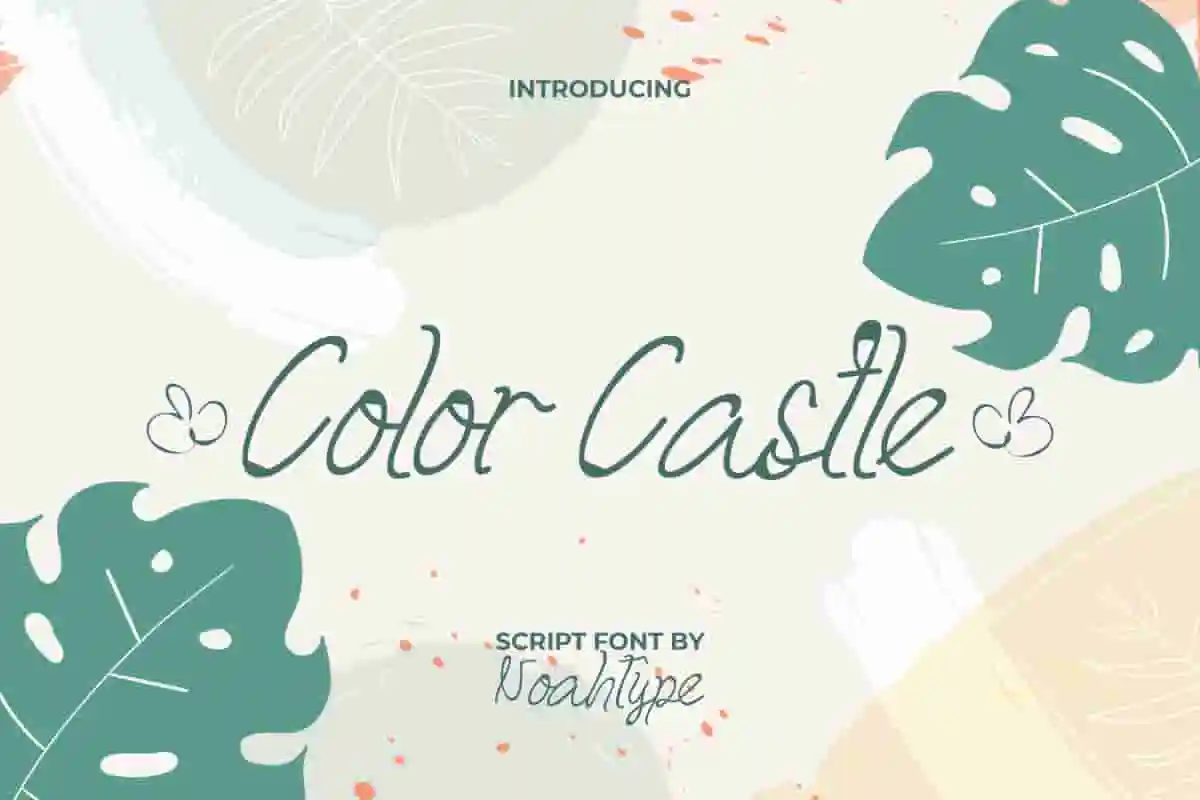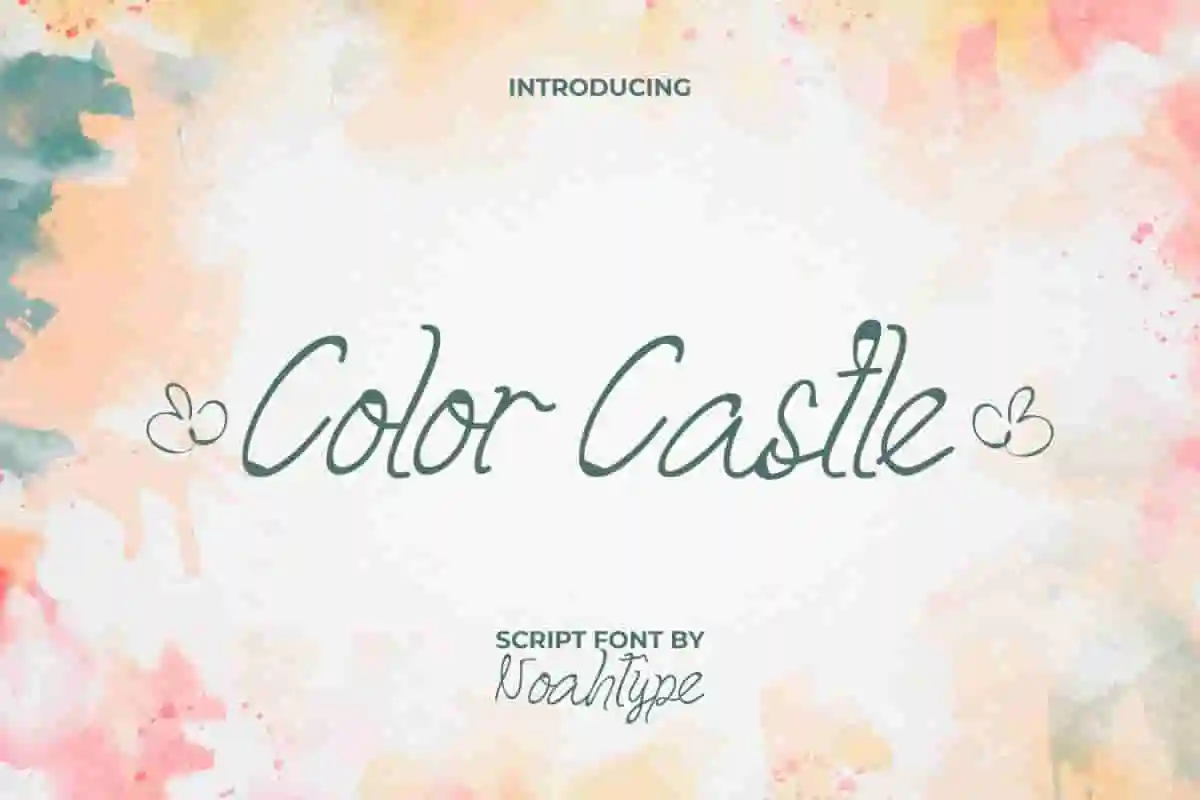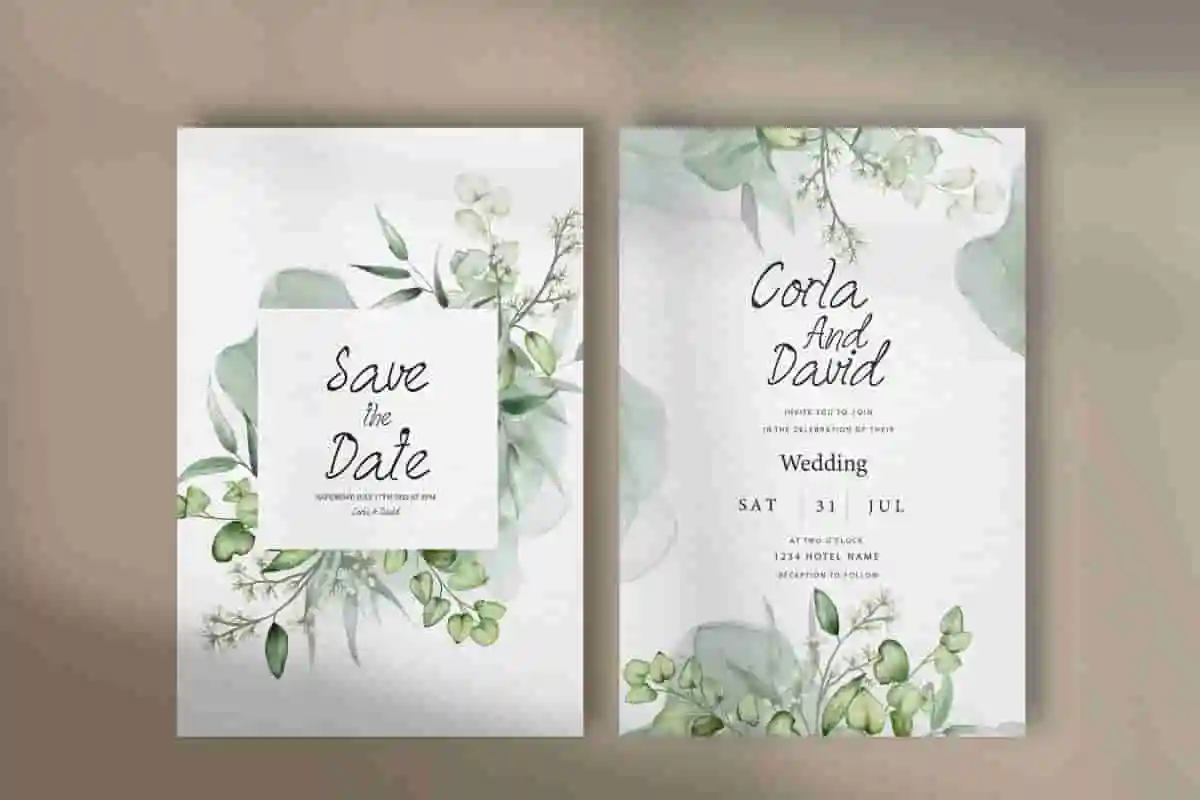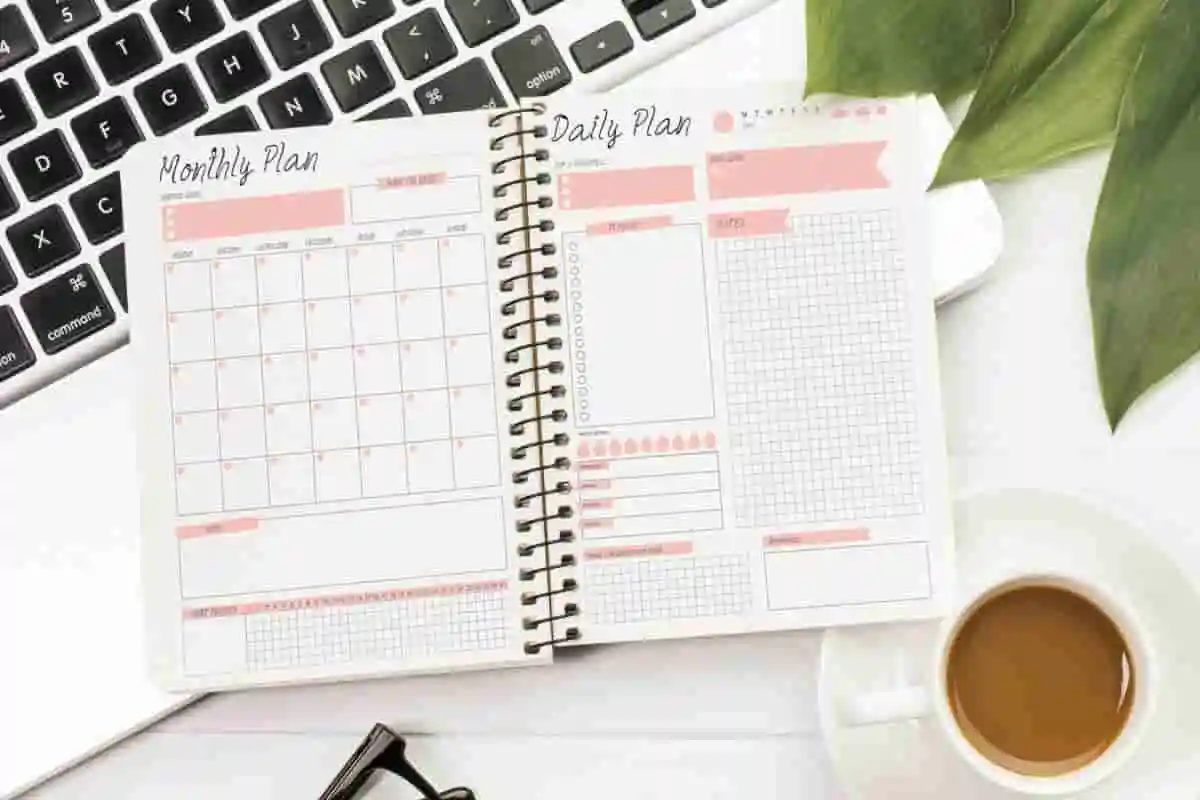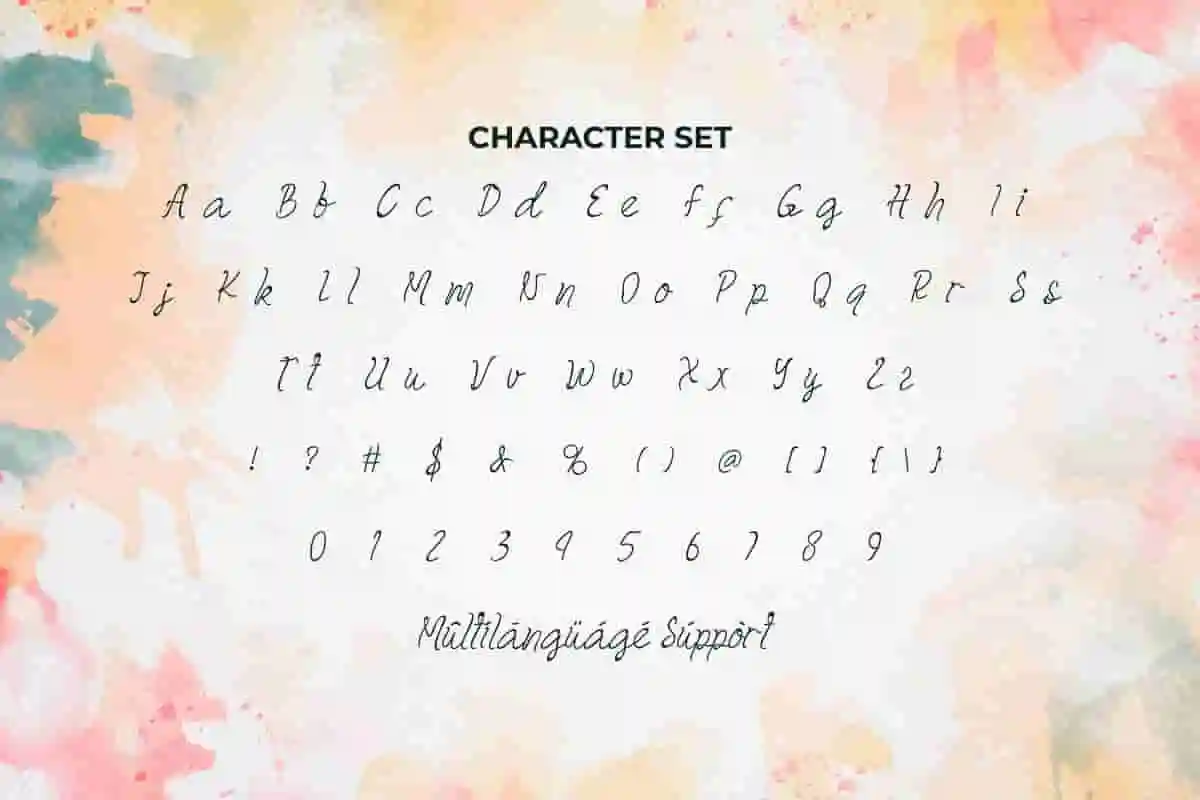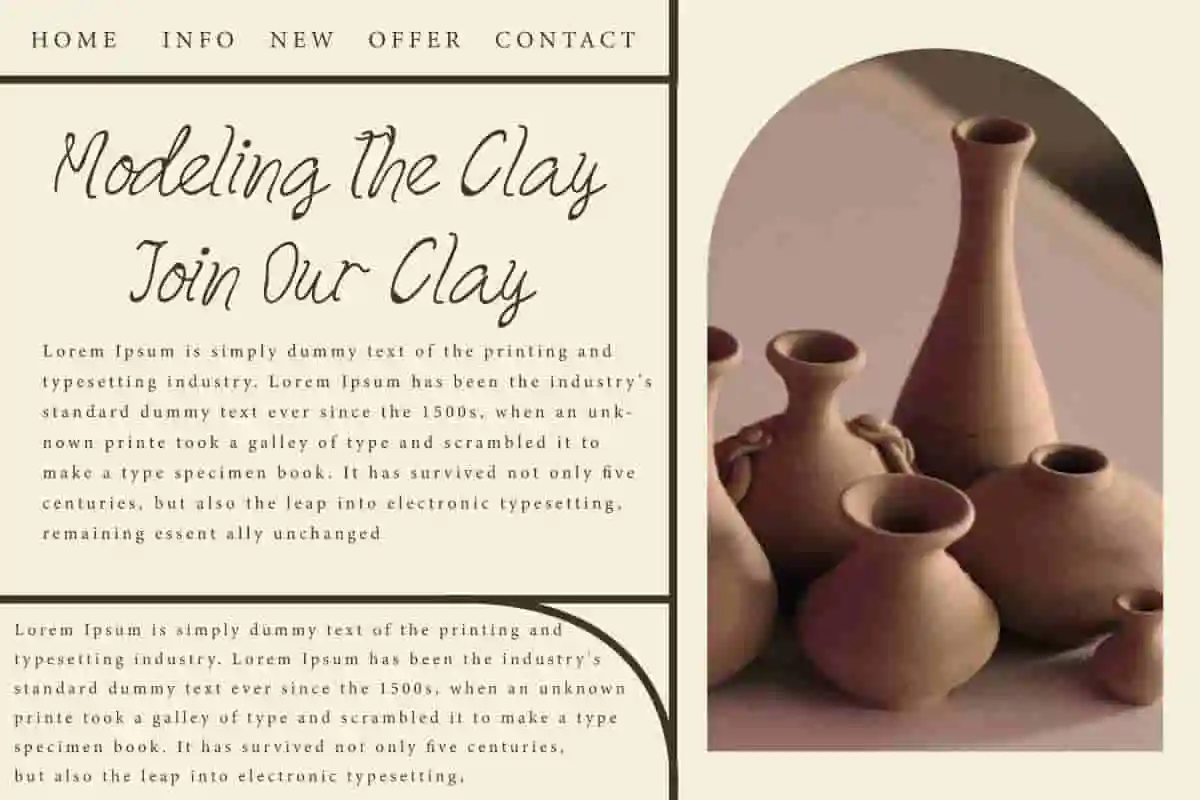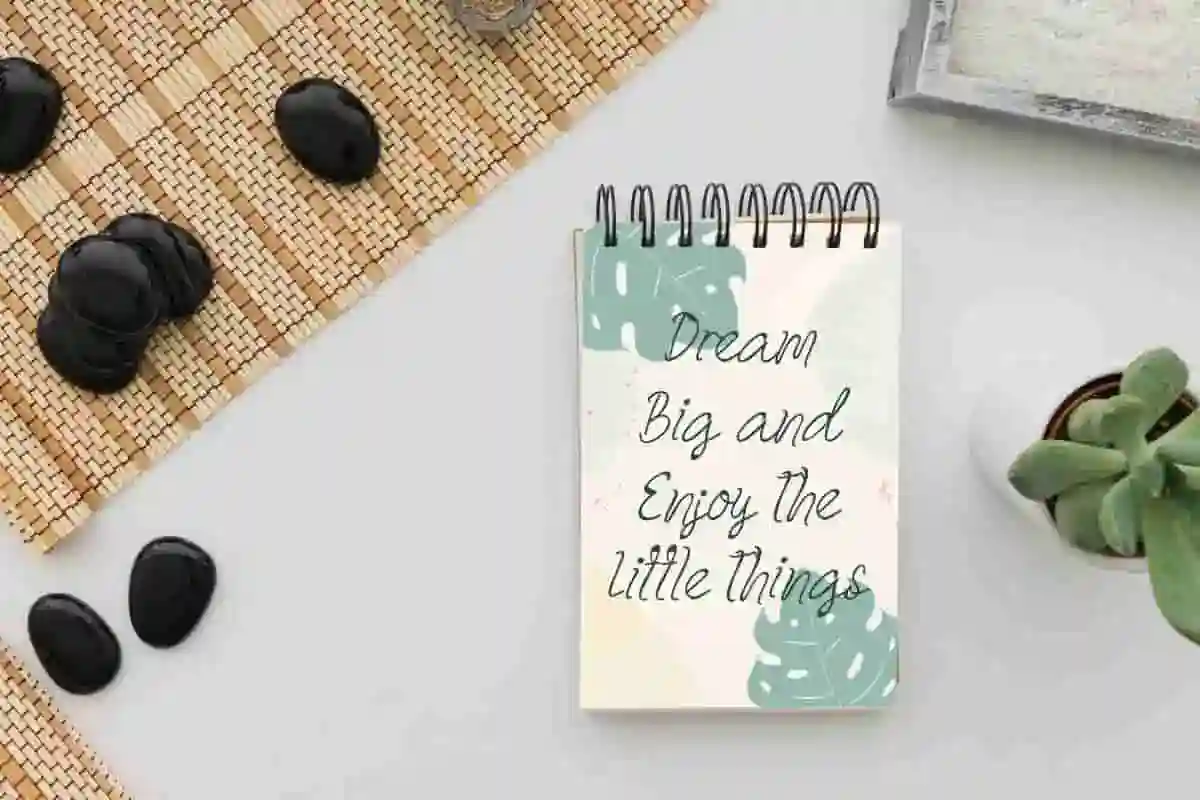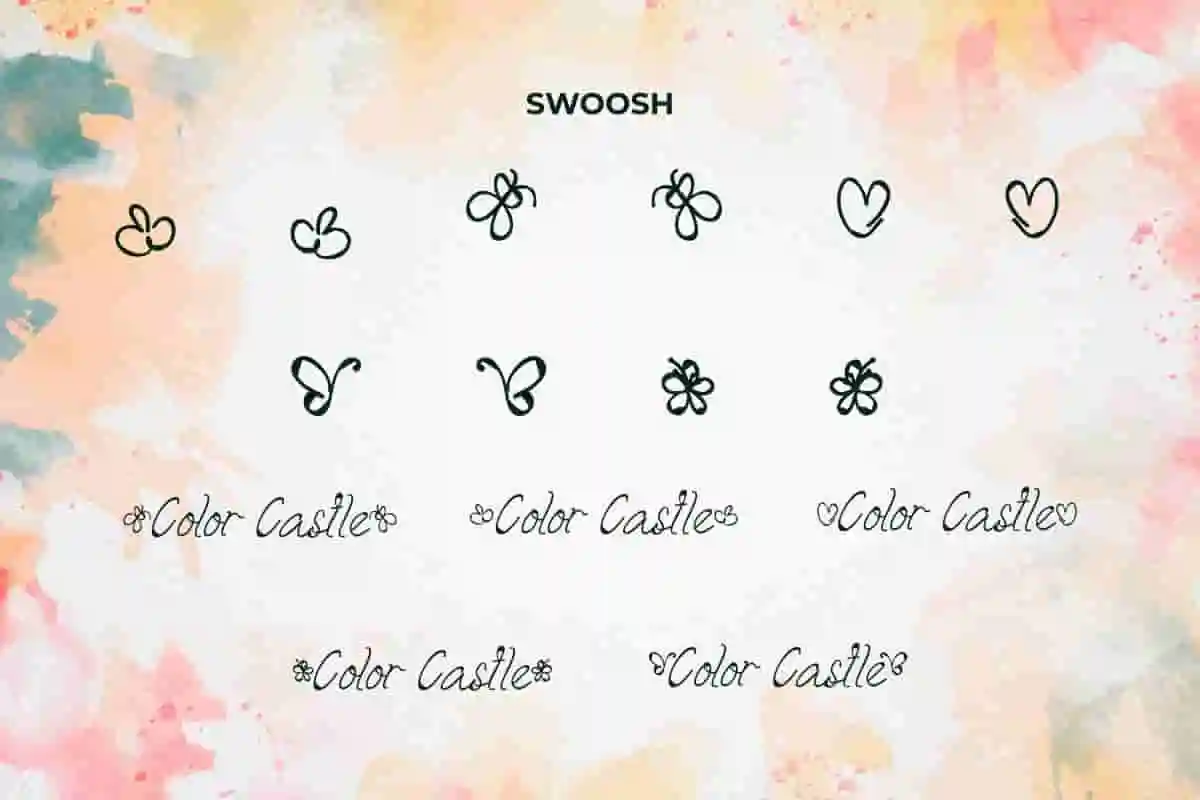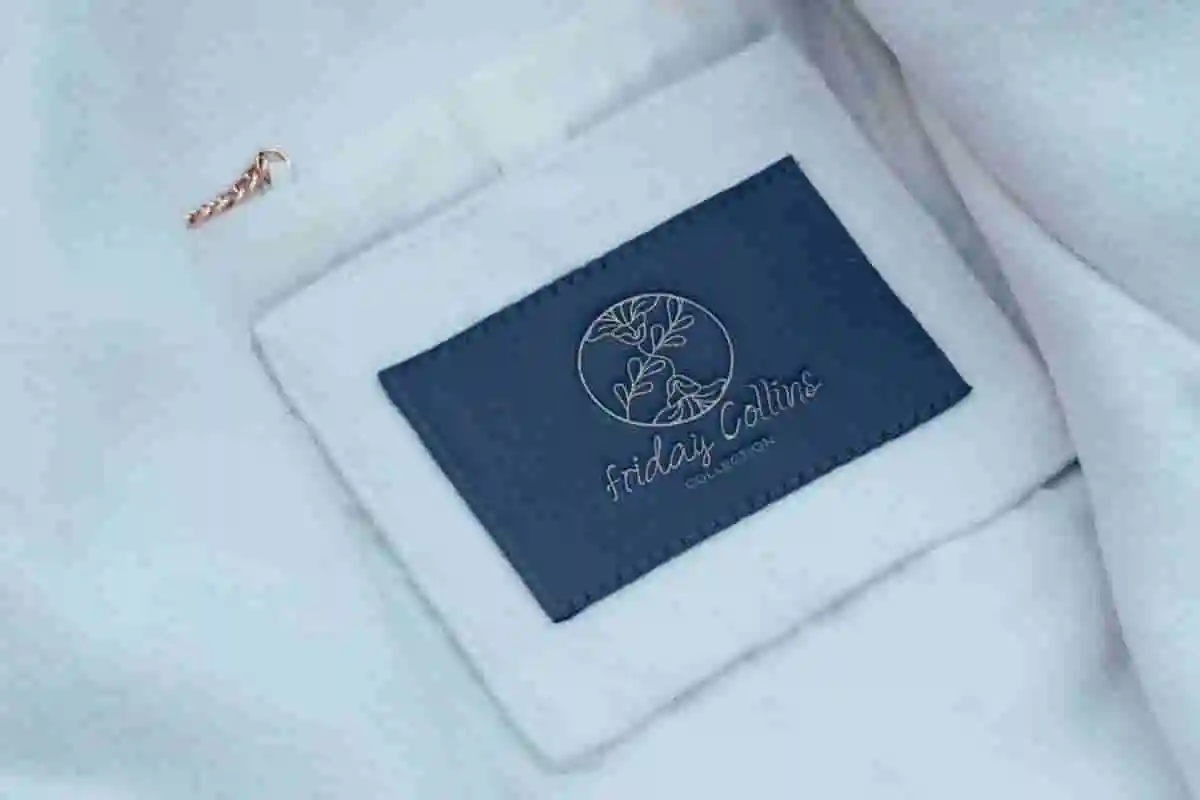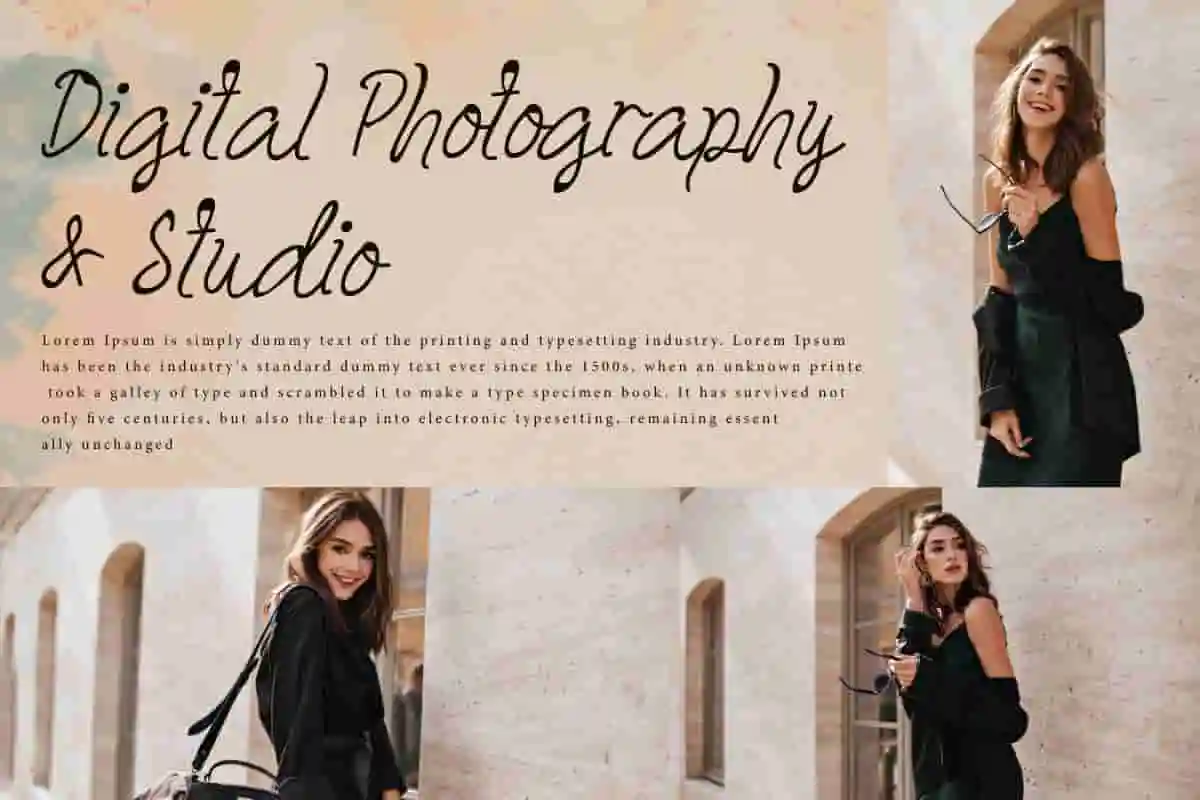
Color Castle Font
Color Castle Font is a unique script display font, created by NoahType. This font has a charm that is different from other types of fonts. This is suitable for those of you who like cursive fonts with a touch of decoration on each character. It will be suitable for any industries, such as advertisement, event or wedding organizer, café, fashion, florist, printing, publishing, and more!
Color Castle Font includes full set of Uppercase and Lowercase Basic Characters, Numerals and Punctuation, and Swoosh. Get inspired and use this beautiful font in your various designs, such as invitation, poster, stationery, brand image, brochure, business card, custom design, label, menu, quote, screen printing, website, and more!